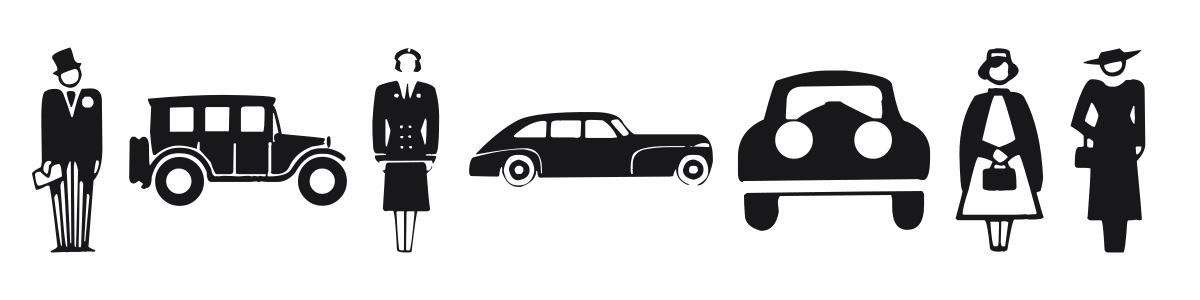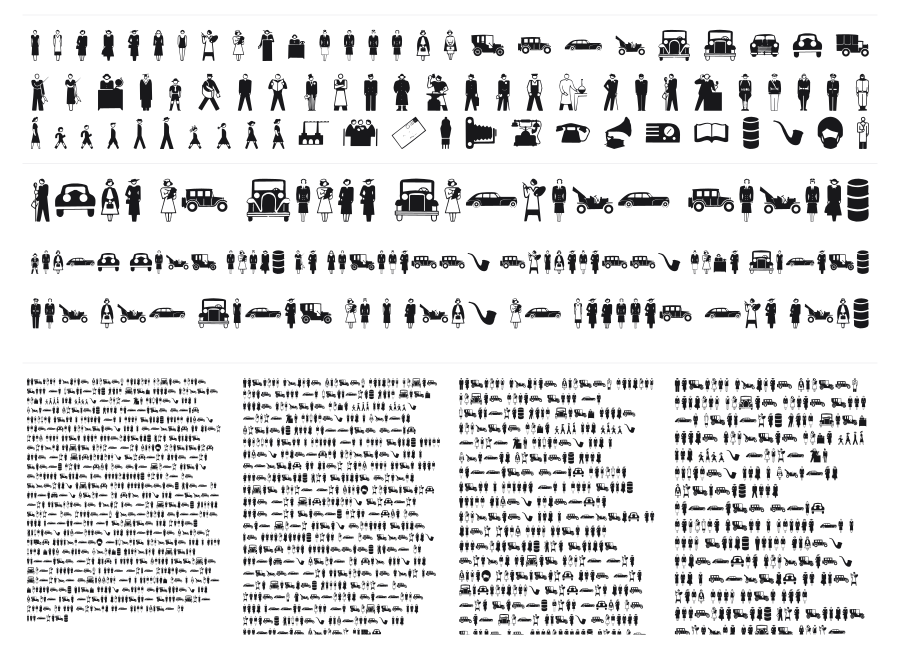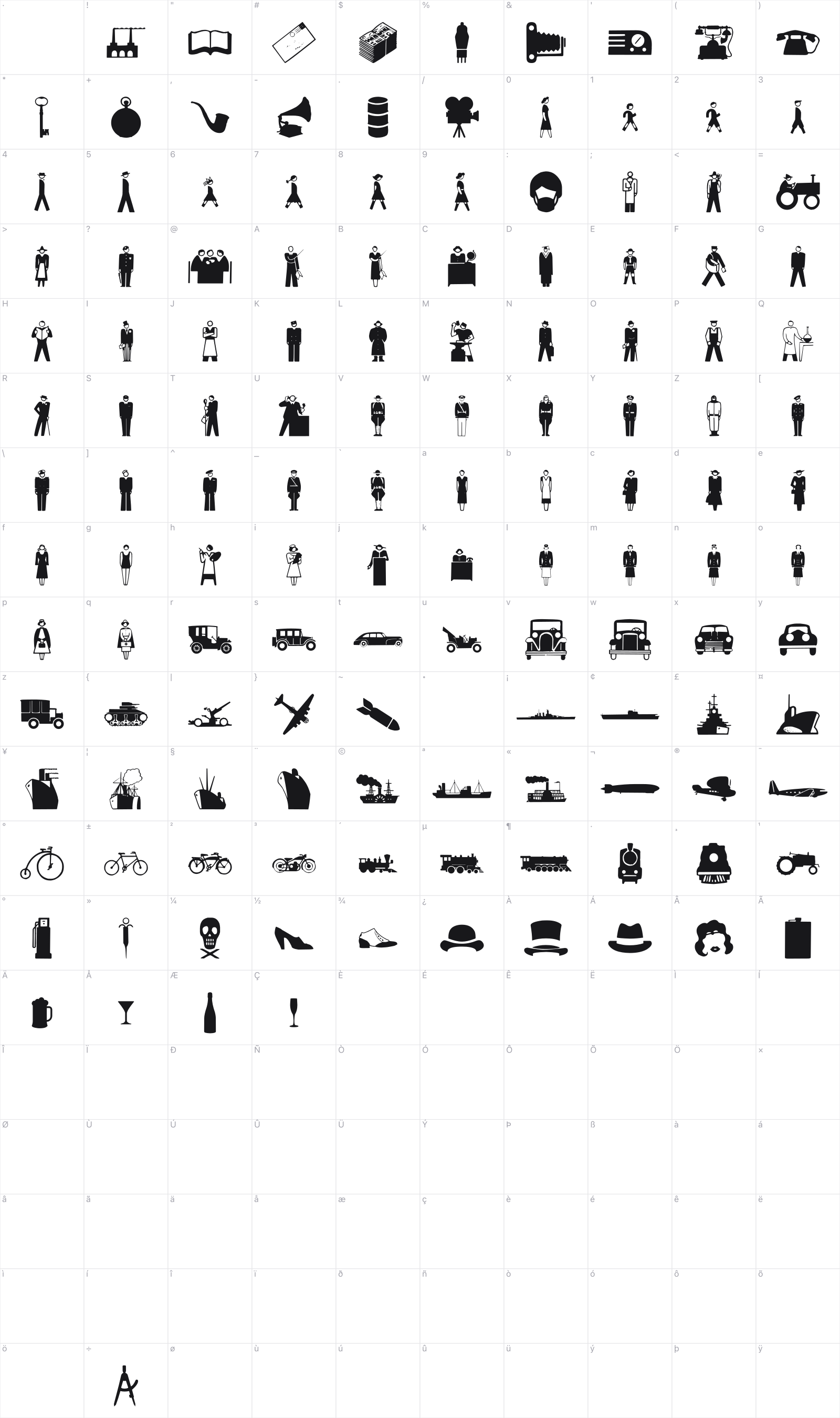
Isotype
Isotype is a pictogram font featuring solid silhouette icons of vintage 1920s–1930s figures and period automobiles. Drawn in a clean isotype tradition, the characters carry real period charm with their flapper-era fashions and classic car shapes. Useful for editorial illustration, retro branding, and decorative accents.